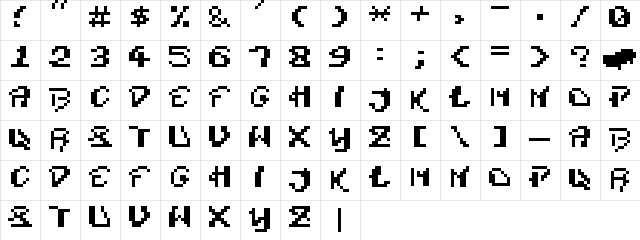
Skate Rock Regular
| Designer | Omegaville |
Design Context for Skate Rock Typeface
Skate Rock is a composed and adaptable typeface that performs quietly and consistently across a wide range of design contexts.